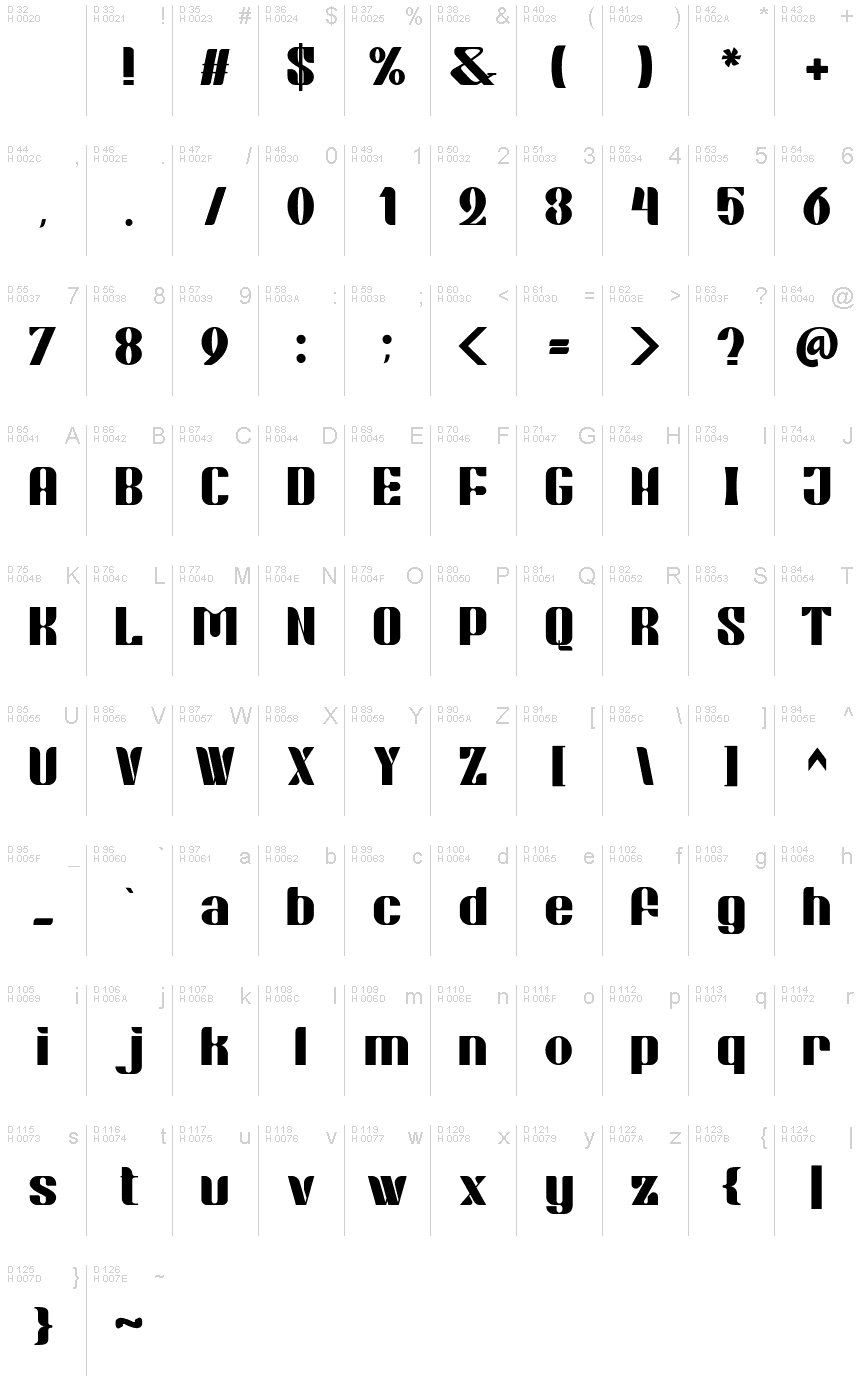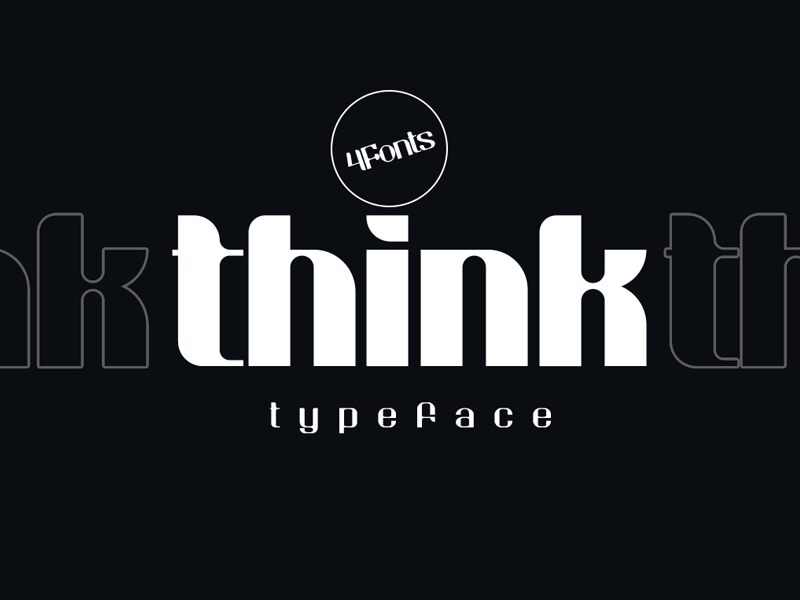
Think Bold
Let me introduce my new font, think typeface, new typeface that give you new experience during use sans font, classic and futuristic in one font with 4 style Regular, Bold, Regular Italic, Bold italic
This font is suitable to be your company's identity
for Logo Project, Landing page and many more, this font is very universal